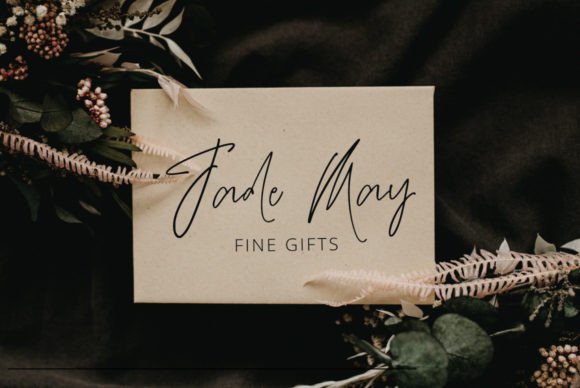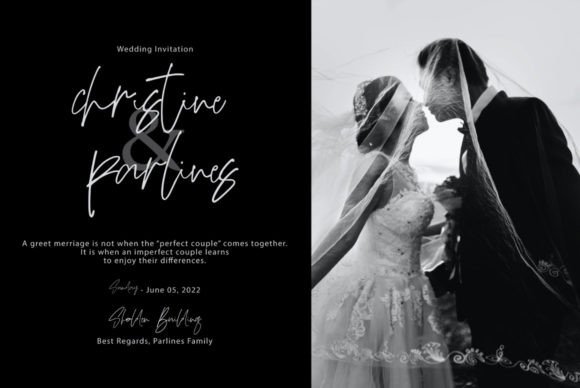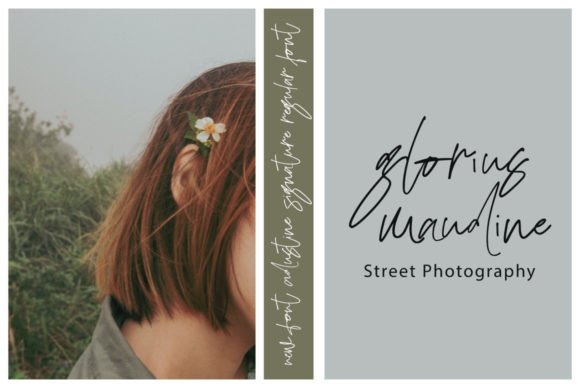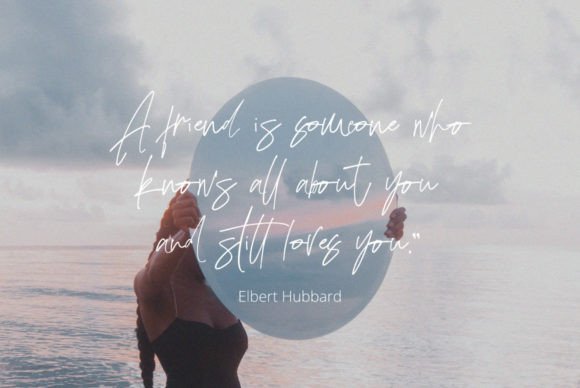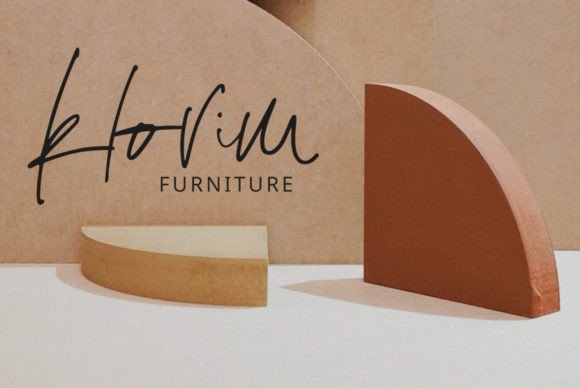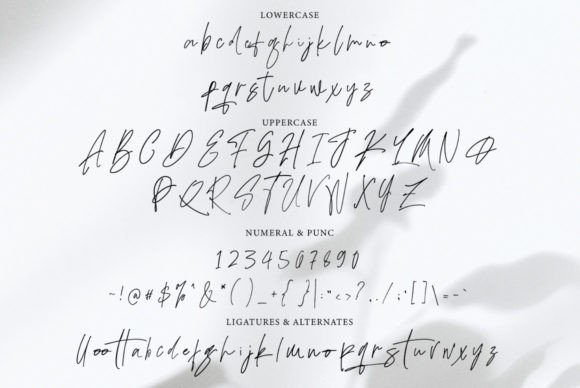
The Perfect Signature: Elevating Your Designs with Adustine Signature Font
Have you ever stared at a blank canvas, trying to conjure up the perfect phrase to express your creativity? The moment of silence is broken when the words flow effortlessly, and you know you’ve created something special. For designers, this moment is what drives us to continually push the boundaries of our craft. It’s in these moments that we need the right tools to bring our vision to life, and that’s where the Adustine Signature Font comes in.
This elegant handwritten script font is more than just a pretty face – it’s a game-changer. Whether you’re designing a wedding invitation, a blog post, or a social media campaign, the Adustine Signature Font has the potential to elevate any creation. With its PUA encoding, you can access all the glyphs and ligatures with ease, giving you the flexibility to create unique and personalized designs.
Adustine Signature Font Key Features
- Font Size and Resolution: The font is designed to be highly legible at various sizes, with optimal readability at 10-24 points and a resolution of 300 DPI.
- Unique Characteristics: Adustine Signature Font features a distinctive, hand-drawn aesthetic with subtle flourishes and irregularities, giving it a personal and artistic feel.
- Font Weight and Style: The font family includes 6 weights, ranging from Light to Black, as well as Italic and Oblique styles, providing a versatile range of design options.
- Language Support: Adustine Signature Font supports a wide range of languages, including Latin, Cyrillic, Greek, and many others, making it suitable for global branding and design applications.
Adustine Signature Font Review
After diving into the Adustine Signature Font, I have to say it’s a great addition to any designer’s toolkit. ✨ The elegant and sophisticated design makes it perfect for branding, invitations, and other high-end projects. The font is highly legible, even at smaller sizes, which is a major plus.
The Adustine Signature Font also boasts a wide range of language support, making it suitable for projects requiring multilingual text. This is a great feature for designers working with clients from diverse backgrounds. ✨ Additionally, the font’s OpenType features allow for some really cool effects, like ligatures and swashes.
While the Adustine Signature Font is a solid choice, there are a few limitations to consider:
- ⚠️ The font may not be as bold or dramatic as some other options, which could be a drawback for designers looking for a more statement-making font.
Overall, I’m really impressed with the Adustine Signature Font. While it may not be the best choice for every project, it’s a great option for designers looking for a sophisticated and elegant font. With its wide language support and OpenType features, it’s definitely worth considering for your next high-end project.
Adustine Signature Font is ideal for:
- Personal branding and signature designs.
- Wedding invitations and event graphics.
- Custom typography and logo designs.